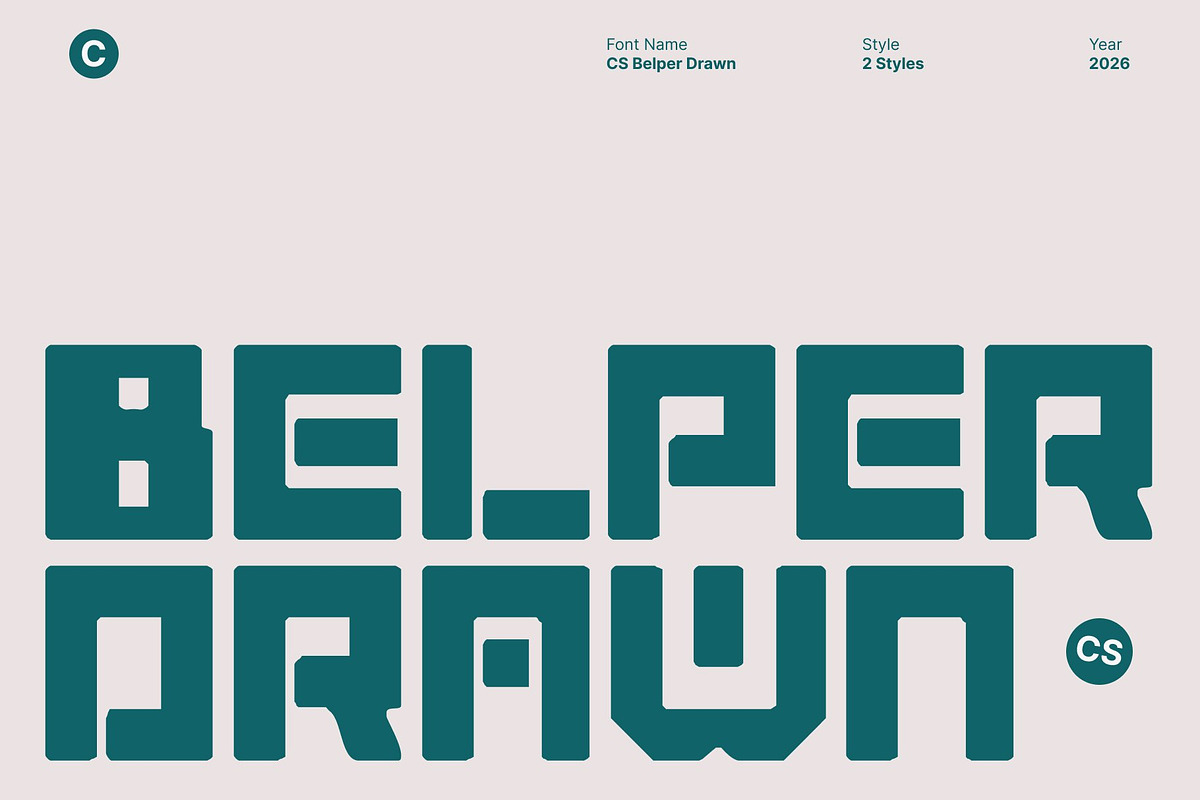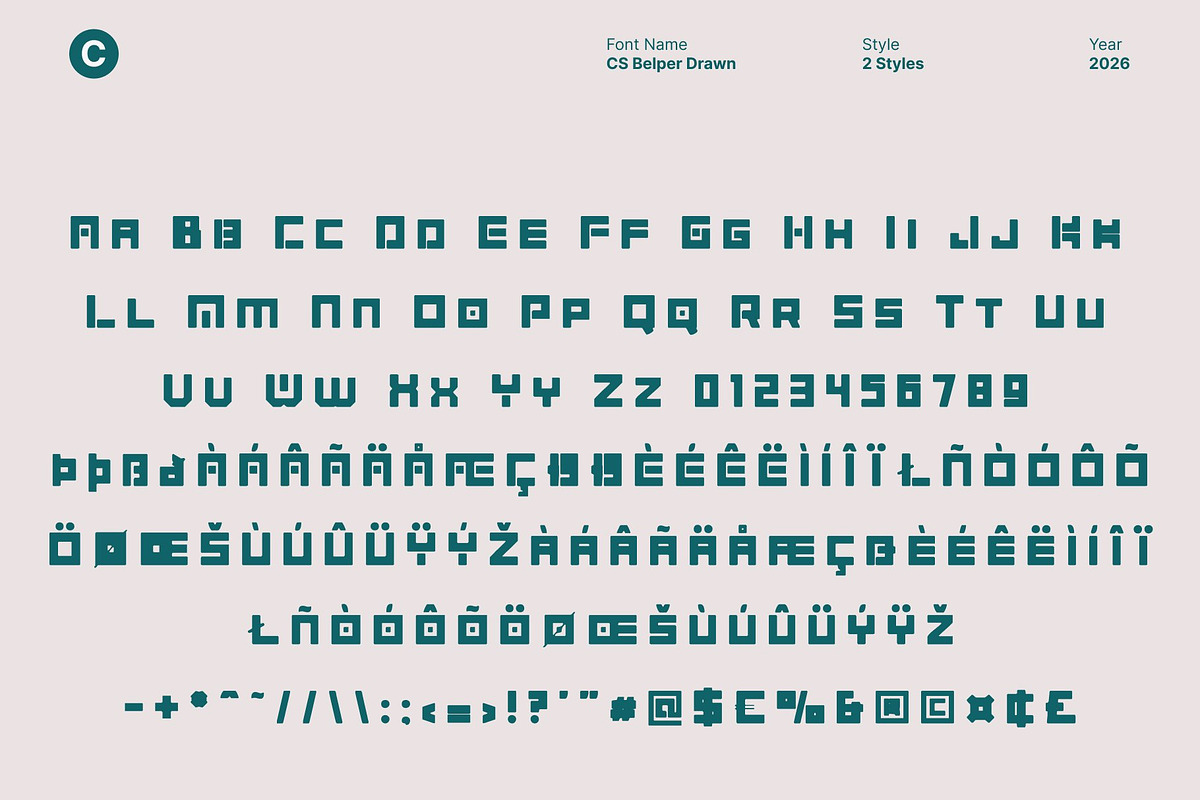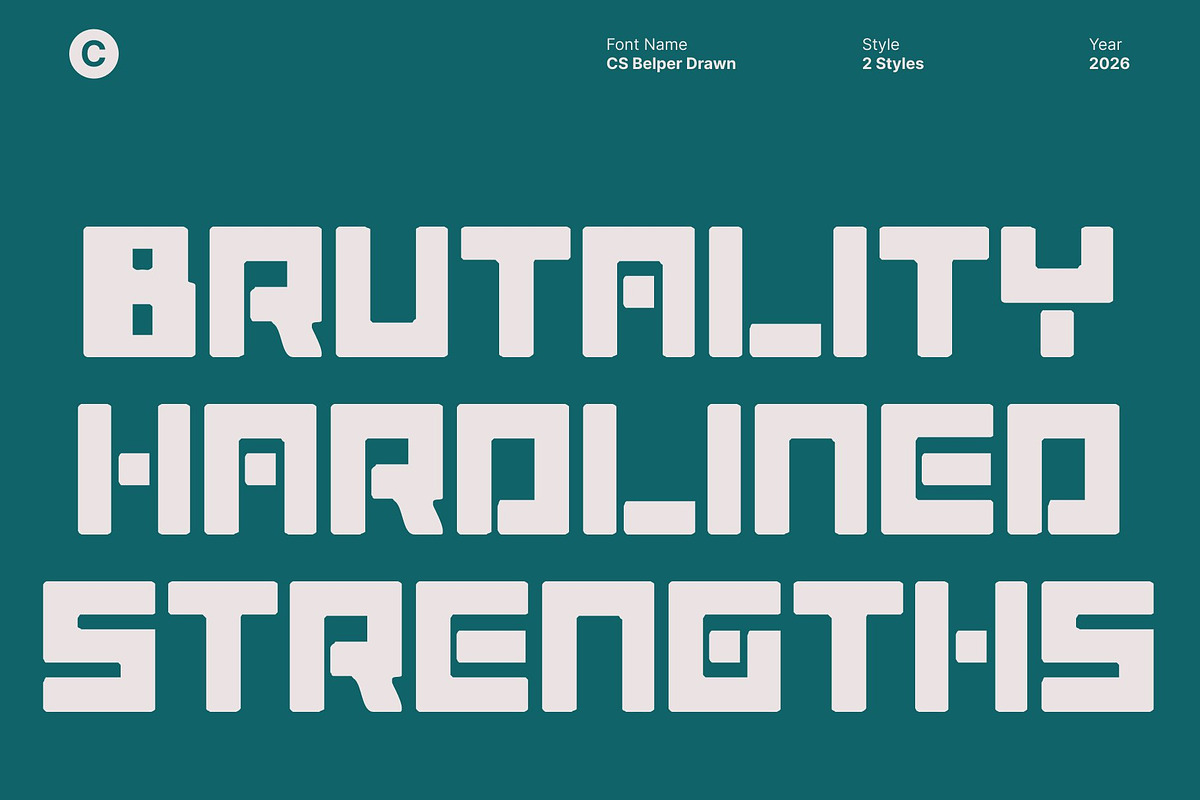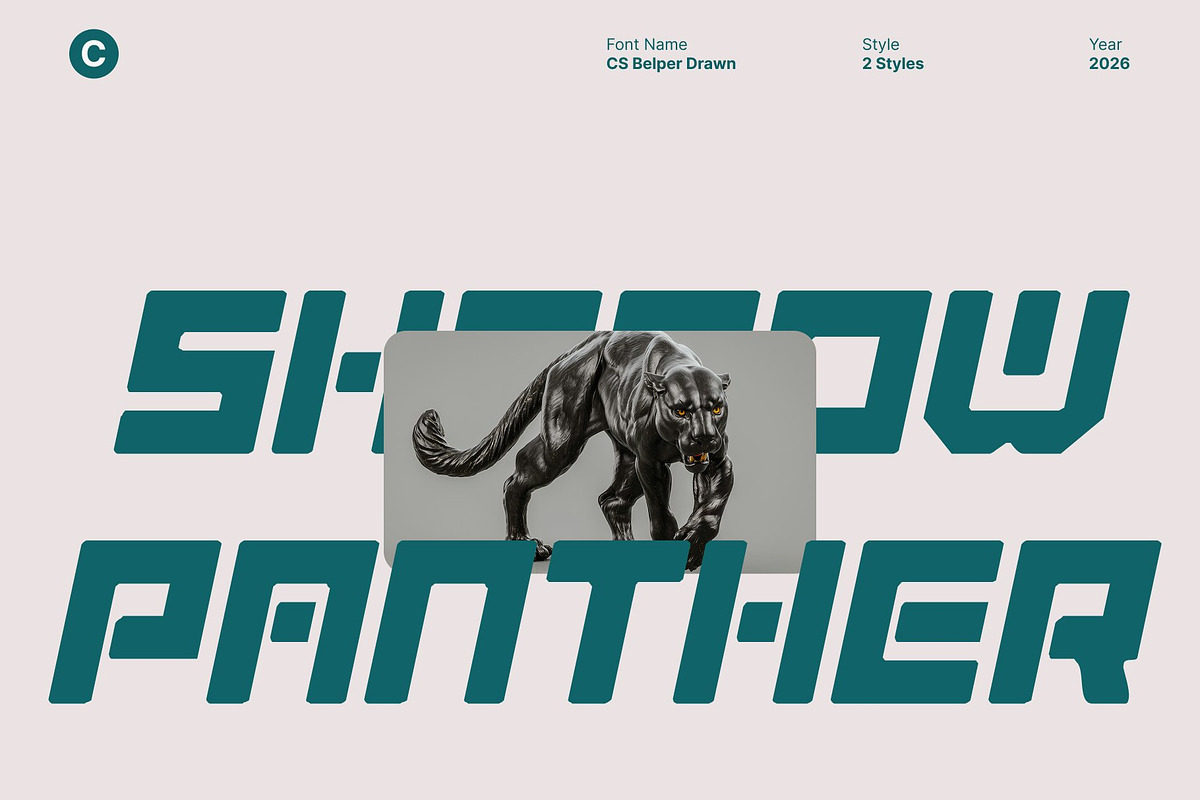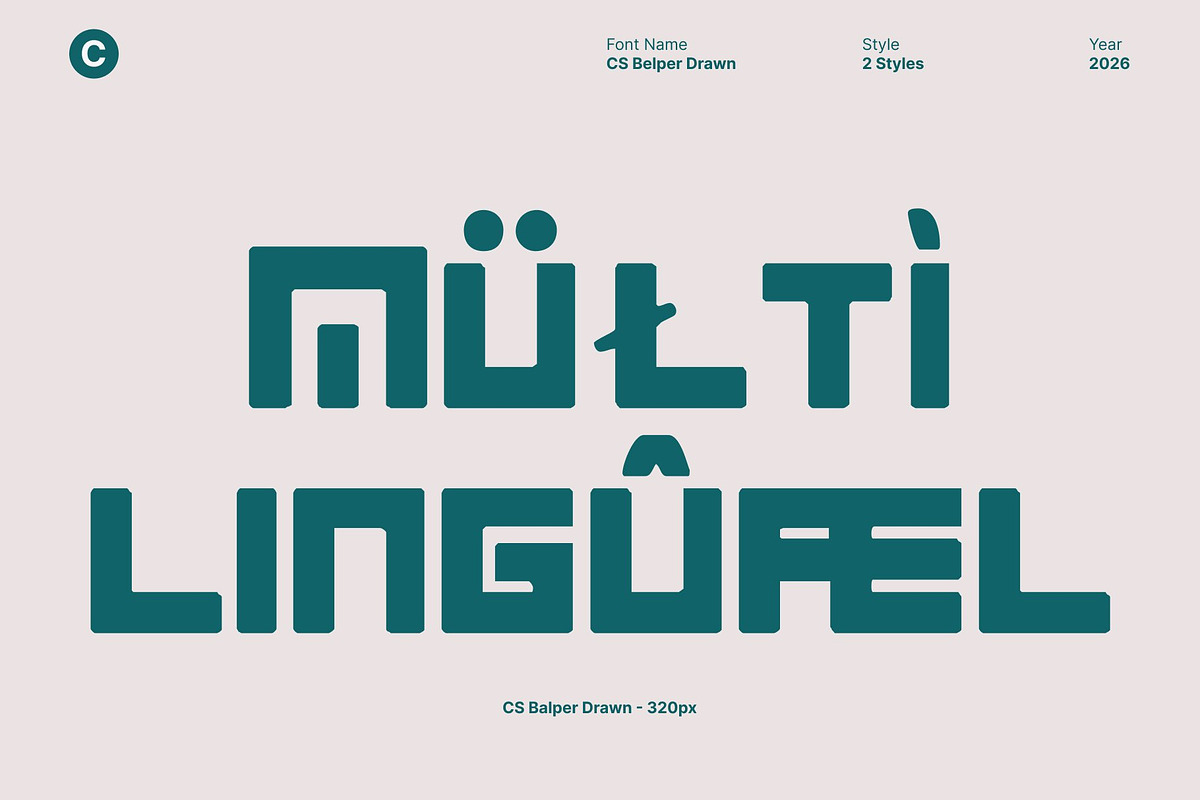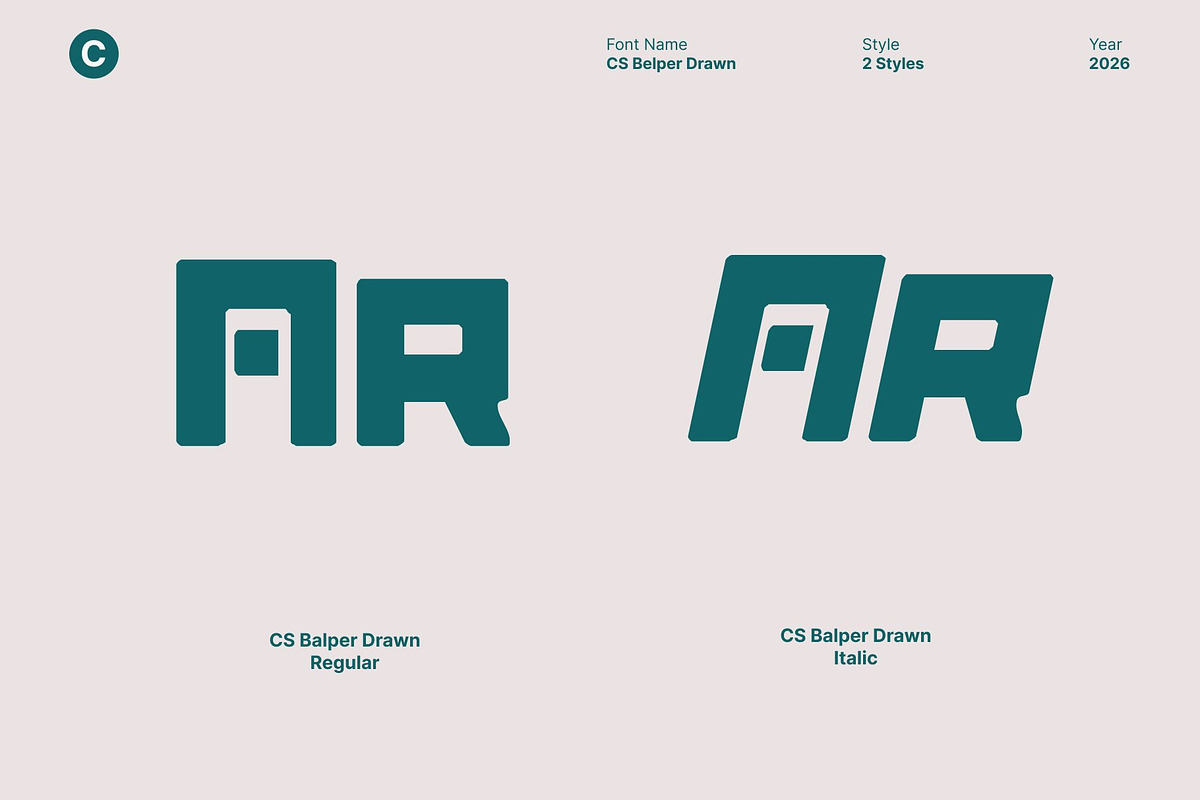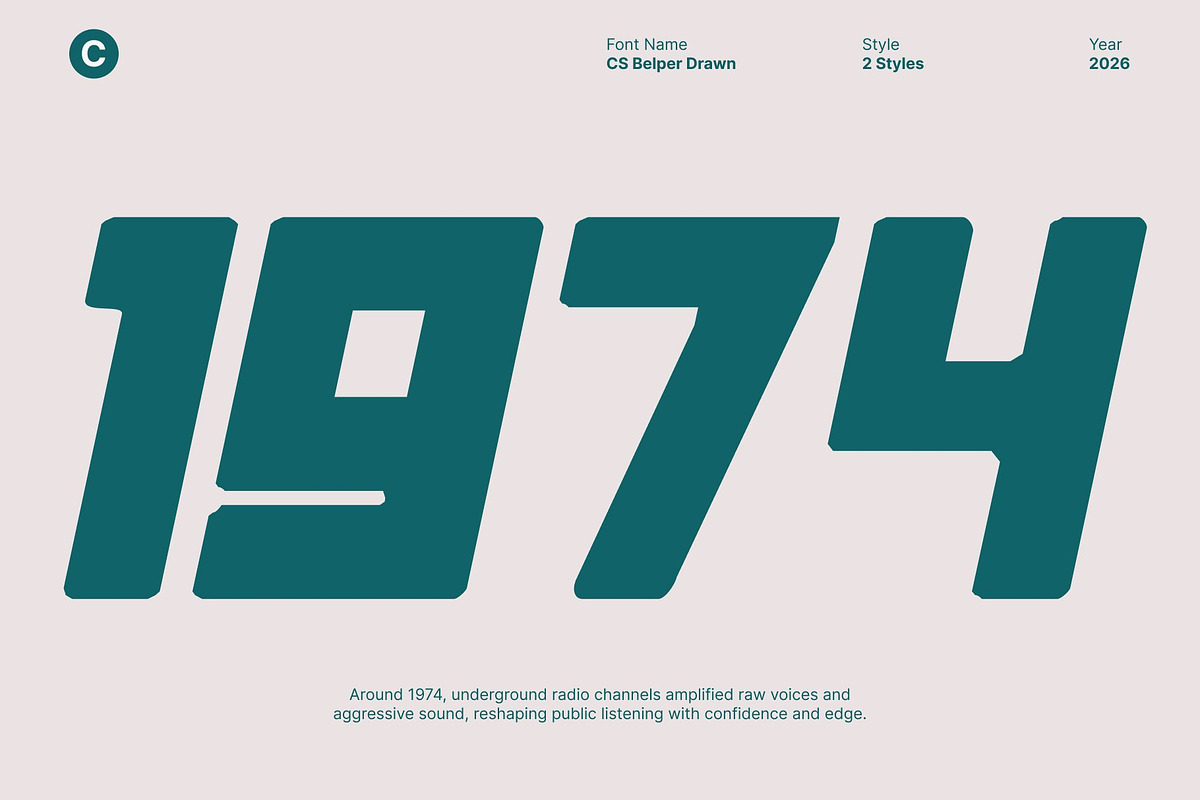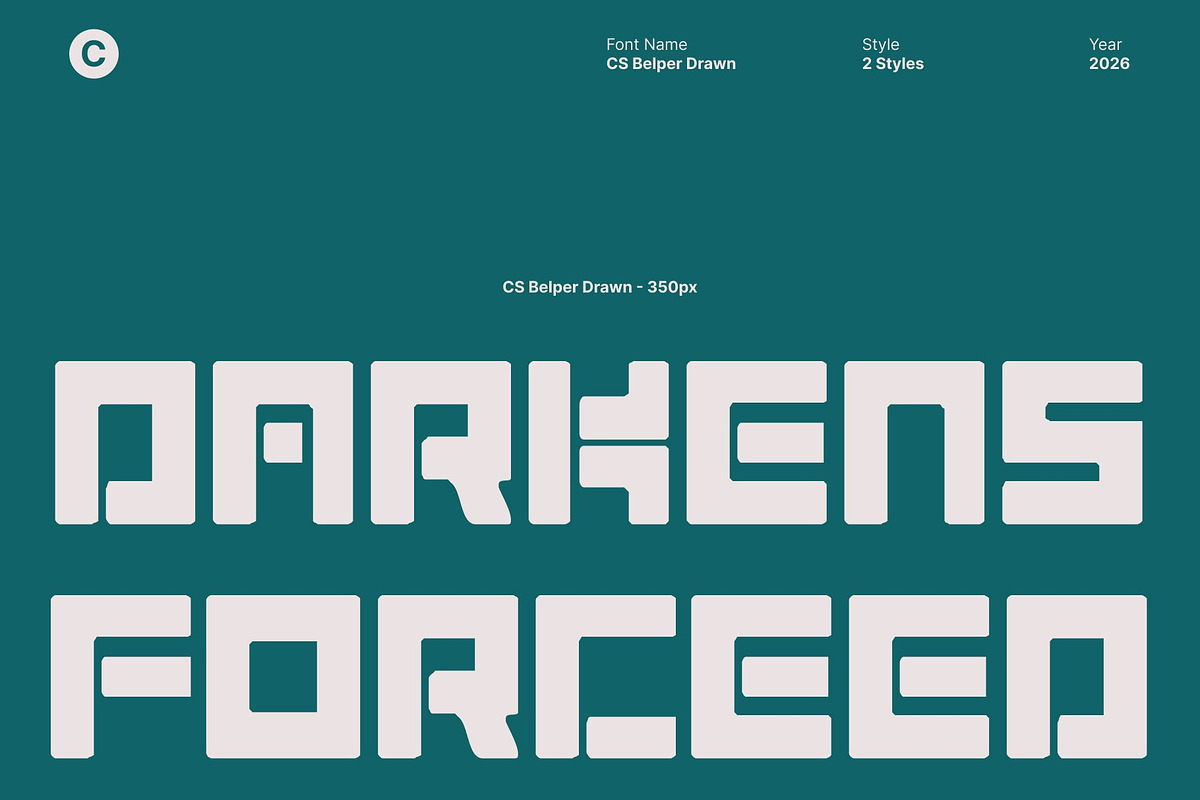
CS Belper Drawn
CS Belper Drawn – Futuristic Power with Modern Energy
Futuristic Display Font with Techno Influence This is a futuristic display font designed to radiate modern energy and visual intensity. Built on a strong techno foundation, it features sharp forms, assertive structures, and experimental details that set it apart from conventional type. The added drawn effect introduces subtle texture and handcrafted character, giving the futuristic style a more expressive and human edge.
Strong Forms with Industrial and Brutalist Character Inspired by industrial systems and brutalist design principles, this font showcases solid strokes and rigid geometry that create a raw, commanding presence. The structured letterforms feel mechanical and urban, while the drawn texture softens the rigidity just enough to add depth and individuality. This balance results in a font that feels powerful, honest, and visually striking.
Experimental Style for Modern Expression This font embraces experimentation through unconventional proportions and dynamic construction. Its forward-looking design language feels innovative and progressive, making it ideal for designers who want to explore new visual directions. The hand-drawn nuance enhances its uniqueness, ensuring each character feels intentional and full of personality.
Ideal for Branding, Logos, and Posters Designed for high-impact applications, this font works beautifully in branding, logos, posters, and promotional visuals that demand a strong, modern identity. Its techno-industrial aesthetic combined with a drawn texture makes it especially suitable for technology brands, creative studios, music events, fashion campaigns, and experimental visual projects.